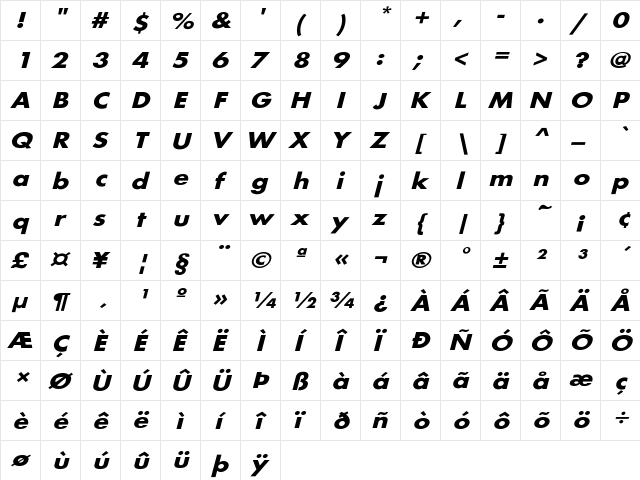
FuturaExtObl-Bold Regular
Design Context for FuturaExtObl-Bold Typeface
FuturaExtObl-Bold has a distinctly futuristic character, with geometric precision and clean angles that feel at home in technology, gaming, and sci-fi contexts. Its bold stroke weight gives it real presence on the page.
Pro Tip: Try FuturaExtObl-Bold with generous letter-spacing in UI labels and navigation — the geometric forms benefit from room to breathe.